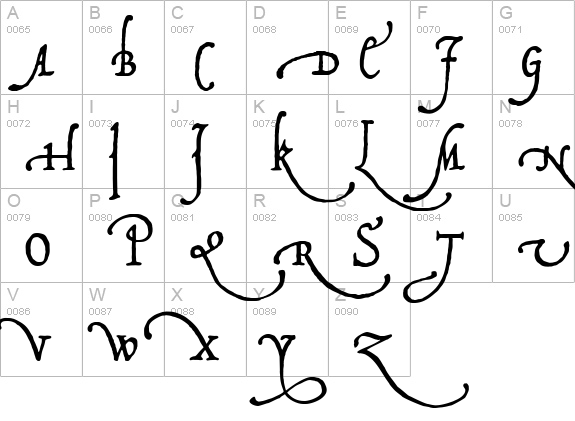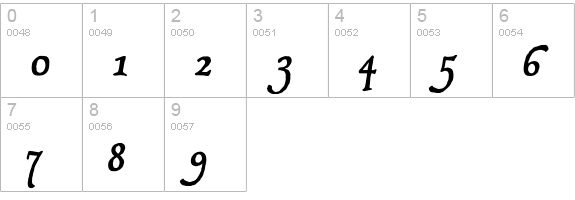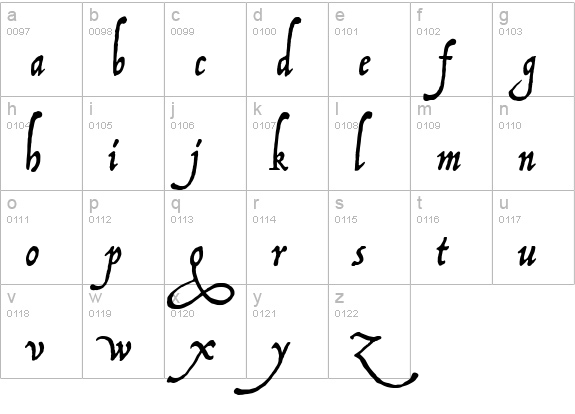
P22 Operina Fiore Font Details
The P22 Operina Fiore font is a stunning display typeface that exudes elegance and sophistication. Its intricate floral-inspired design brings a touch of beauty and charm to any project. With its delicate curves and ornate details, this font is perfect for creating elegant invitations, wedding stationery, and luxurious branding materials. What sets P22 Operina Fiore apart is that it is not only visually striking but also versatile and easy to use. Whether you are designing a high-end logo or a romantic greeting card, this font will elevate your work to the next level. Best of all, P22 Operina Fiore is available for free download at FontsMarket.com. So you can add this exquisite font to your collection without breaking the bank. Don't miss out on the opportunity to enhance your designs with the timeless beauty of P22 Operina Fiore.